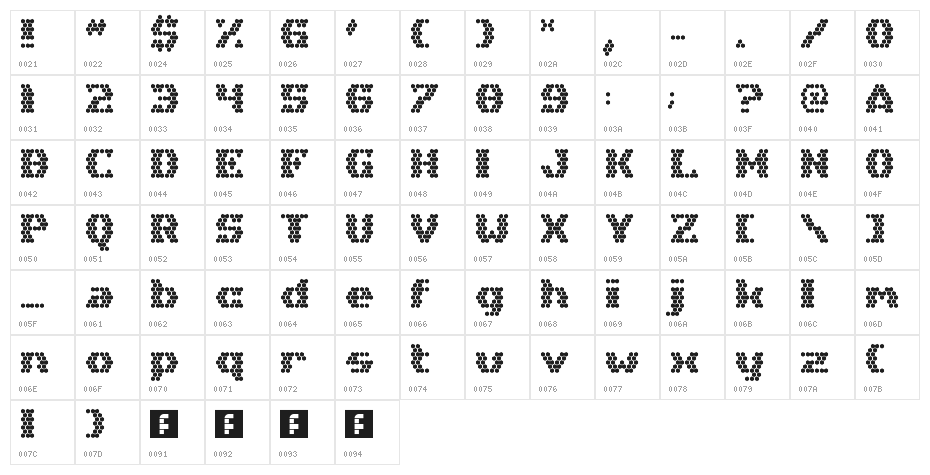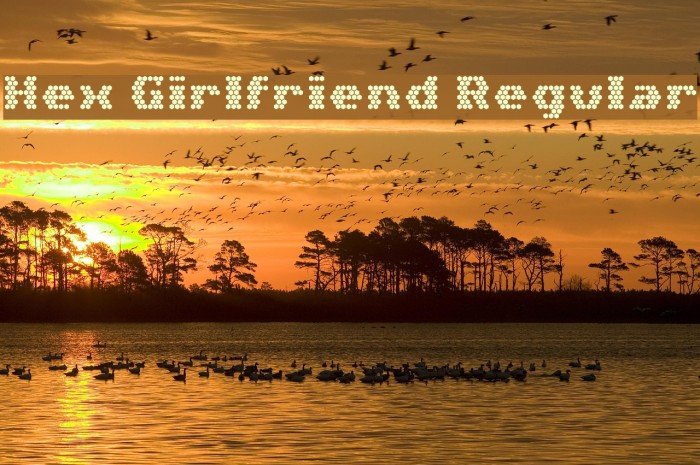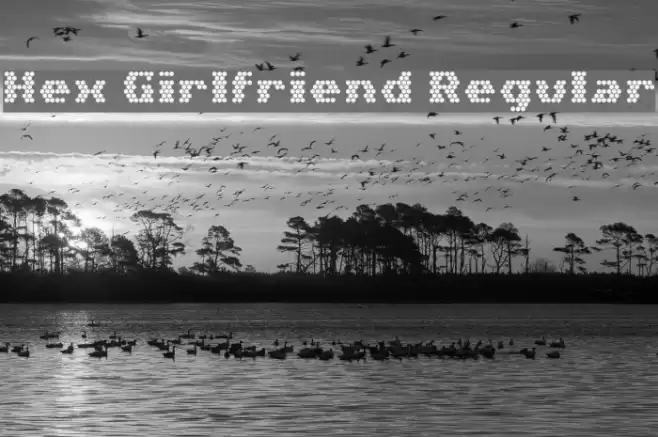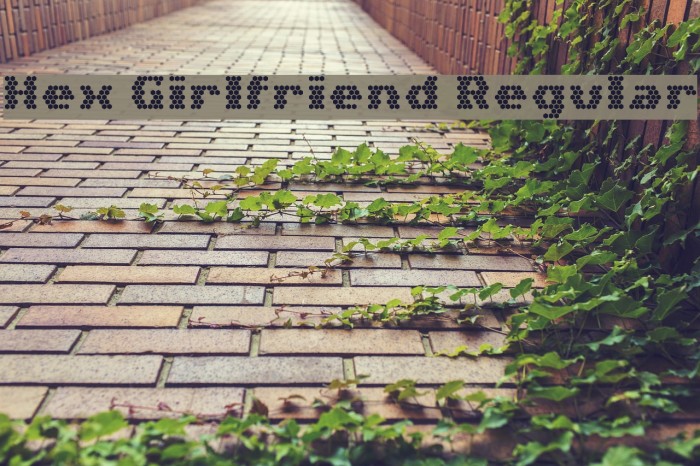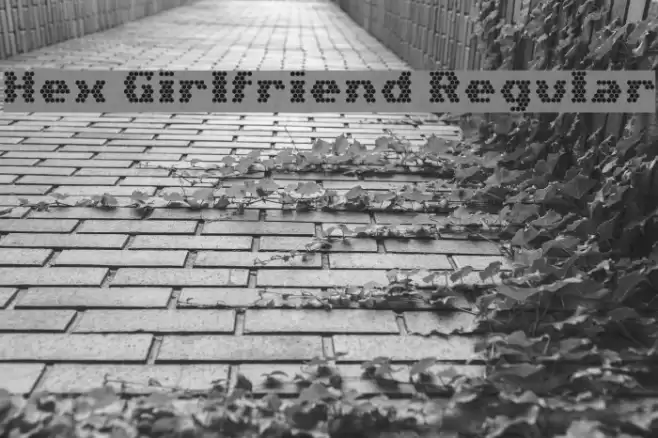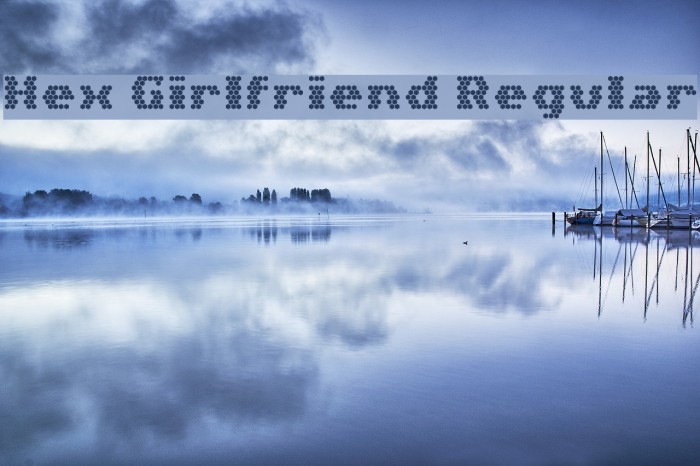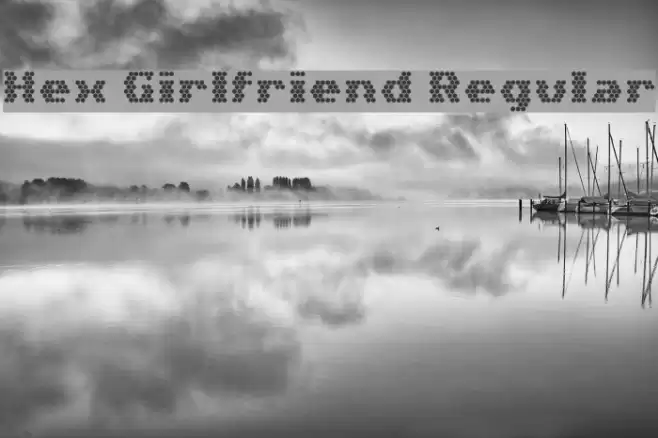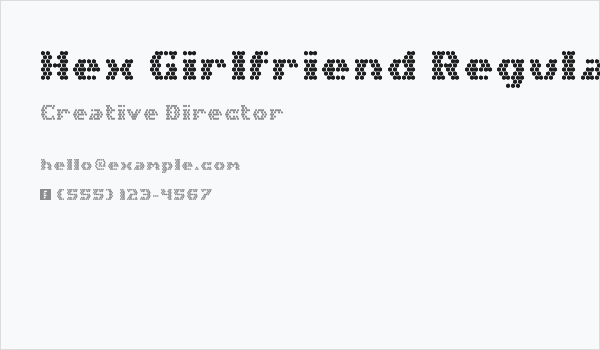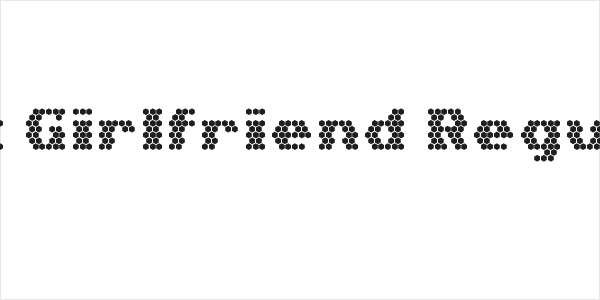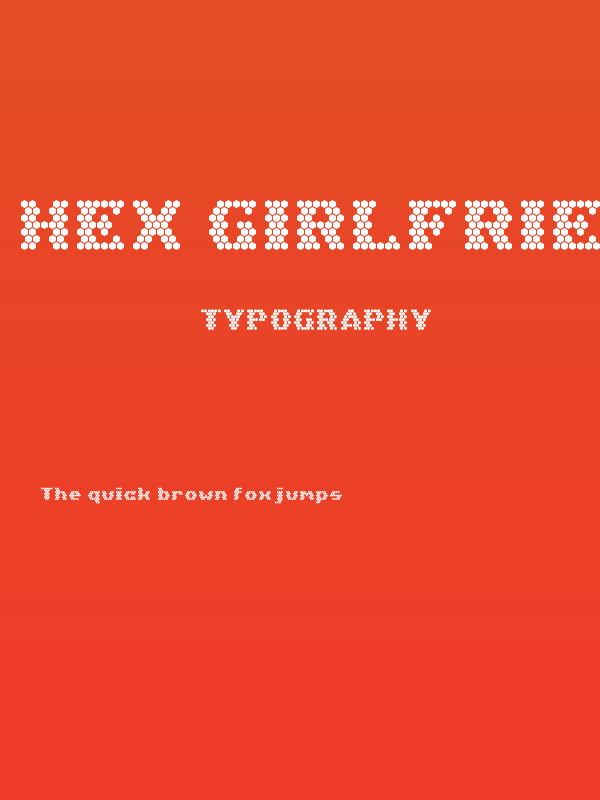
Hex Girlfriend Regular Font
Hex Girlfriend Regular Description
This font features a unique design composed entirely of small hexagonal dots forming each character. The geometric pattern gives it a distinct, modern appearance, making it stand out in any design. The characters are evenly spaced, maintaining a consistent visual rhythm across both uppercase and lowercase letters, as well as numbers and special symbols. The hexagonal motif adds a playful yet structured feel, suitable for creative and contemporary projects. Its bold presence ensures readability while offering a decorative touch.